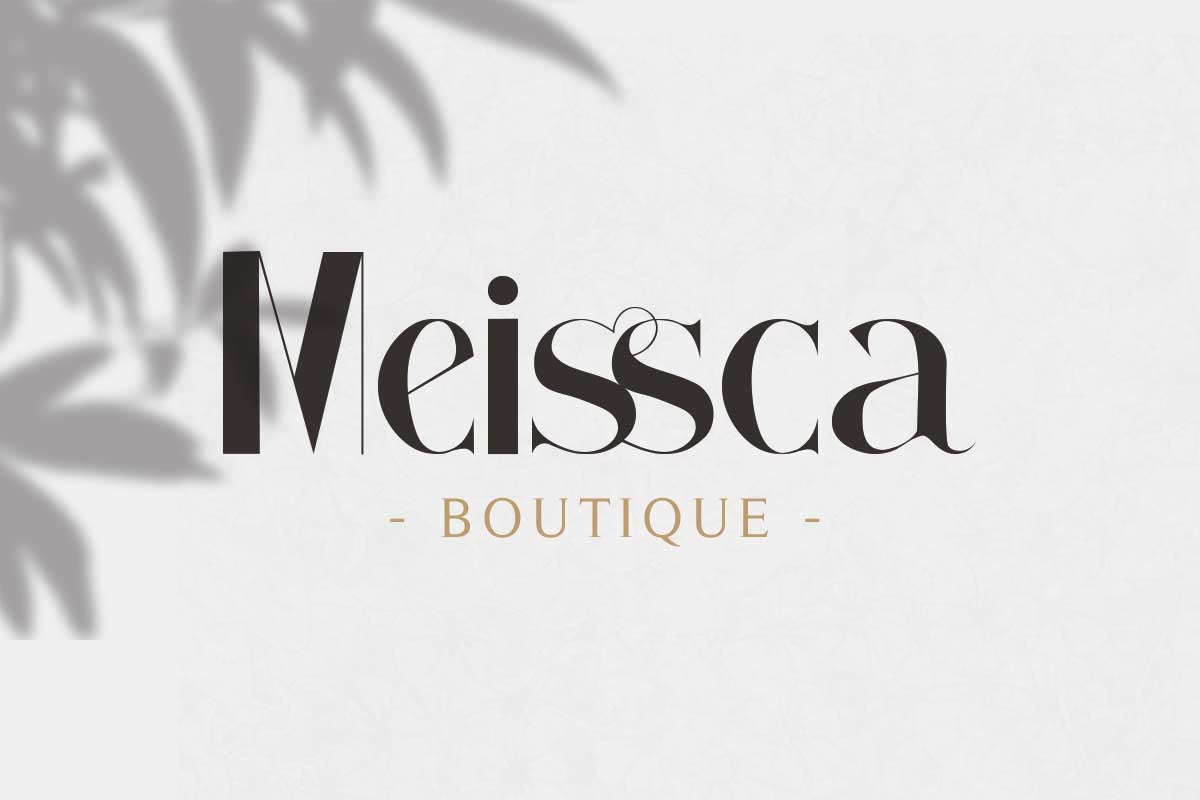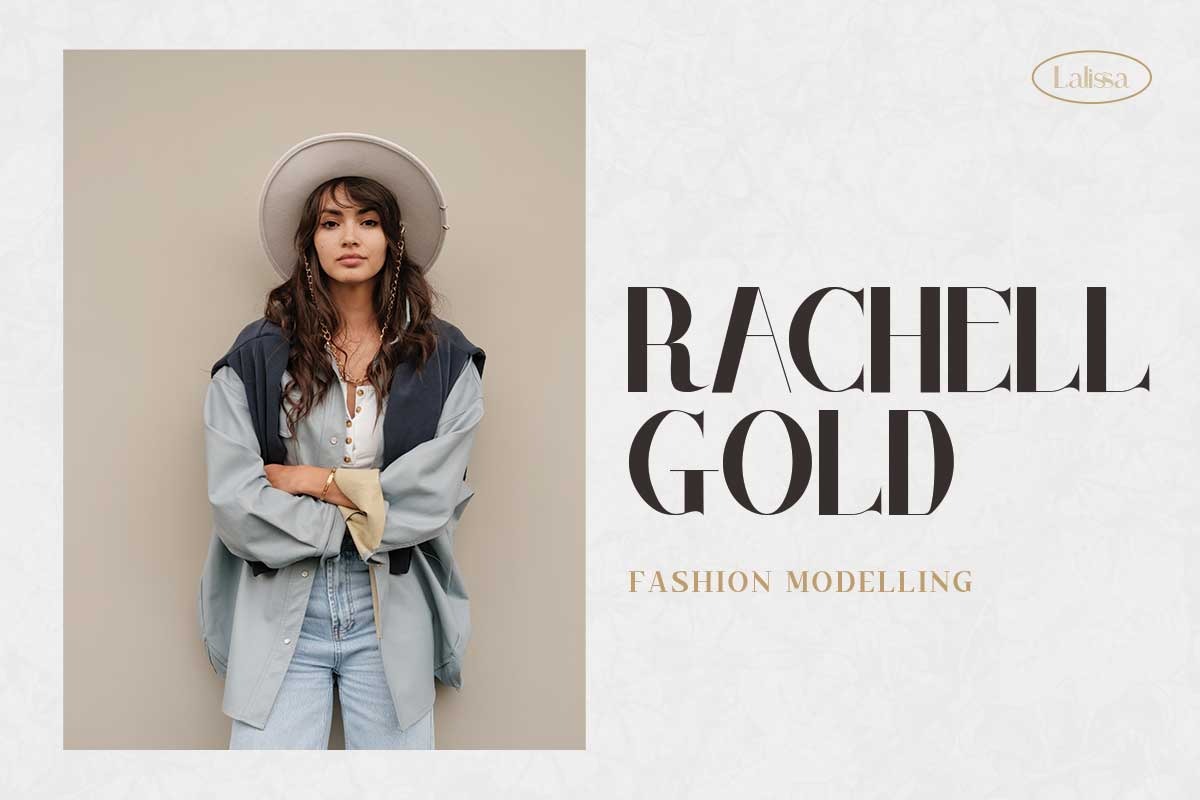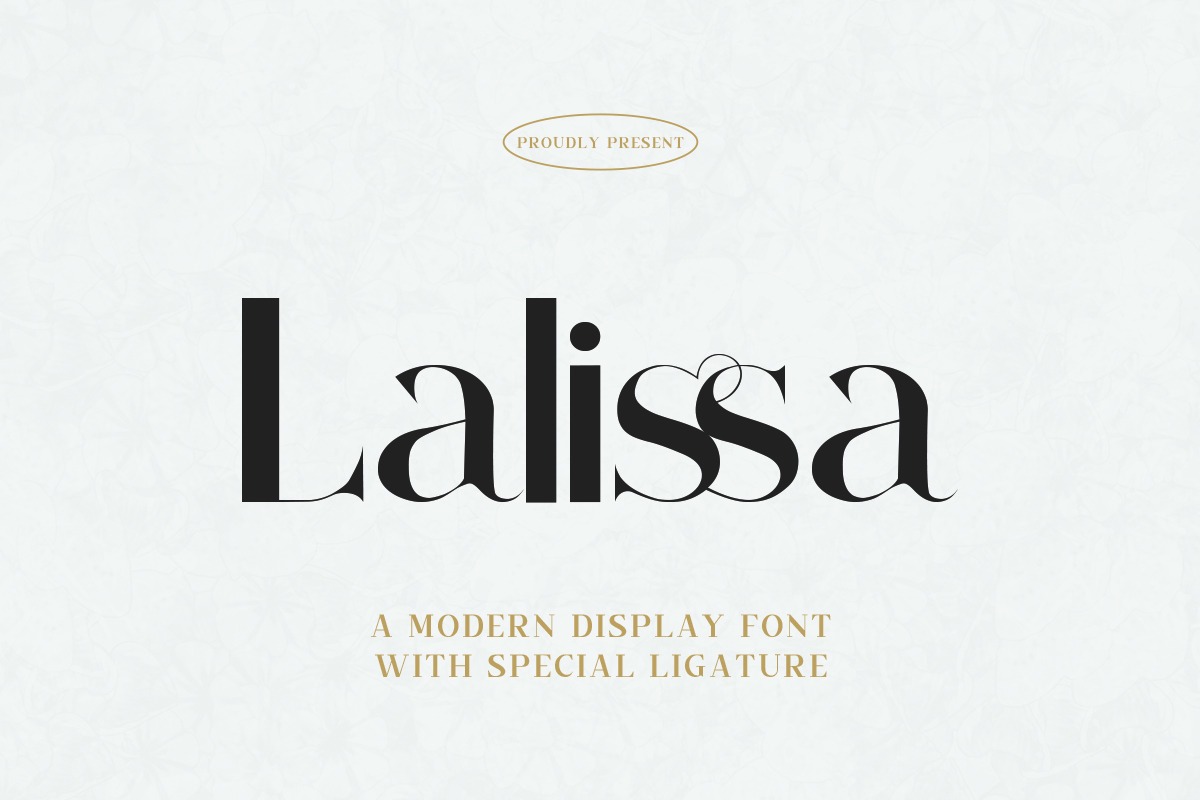
Lalissa Serif Font
This is an Unique Display serif font created by fontkong with luxury, elegant, modern, unique and classy-look. It’s great for quotes, magazines, beauty products, crafts, weddings, boutique and much more! Lalissa font is highly recommended to be a collection of fonts for current or future design creation.